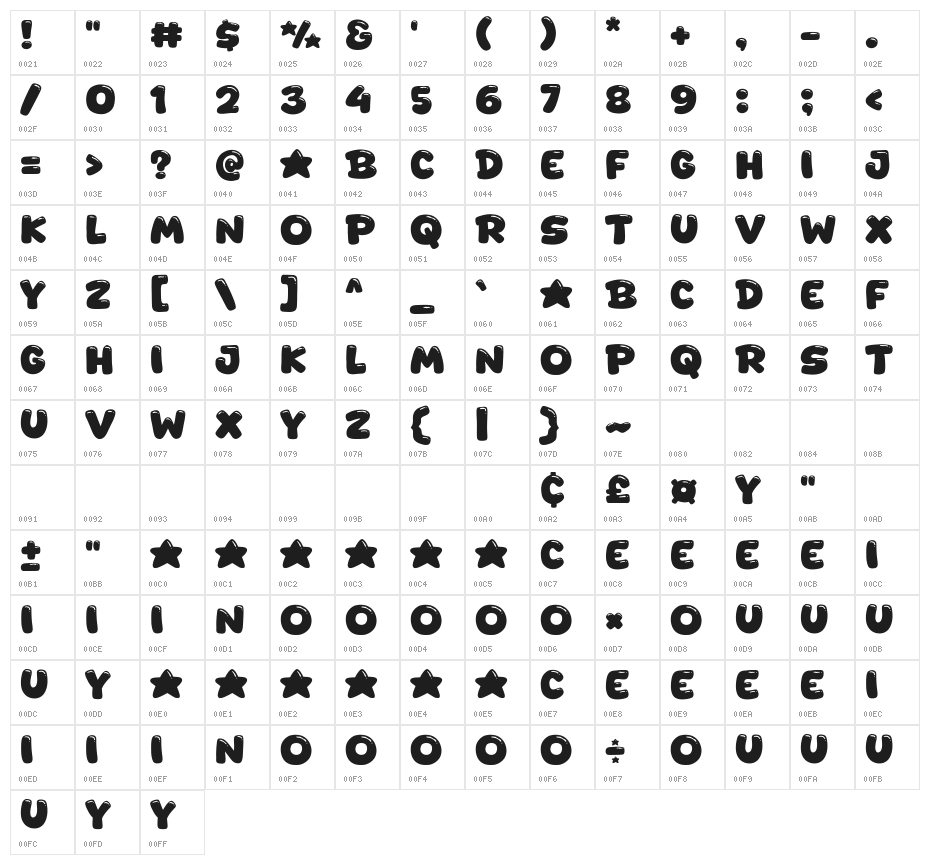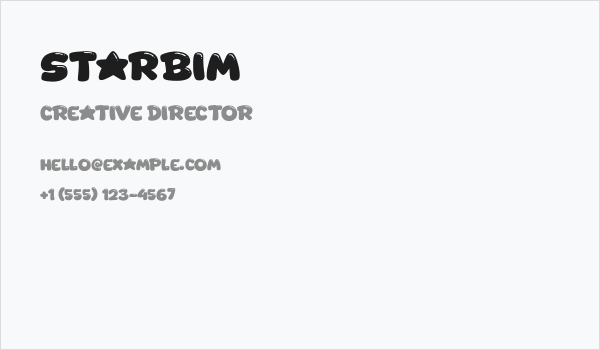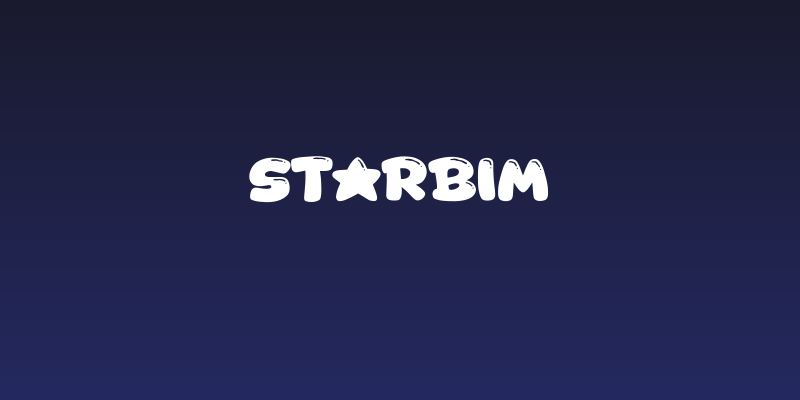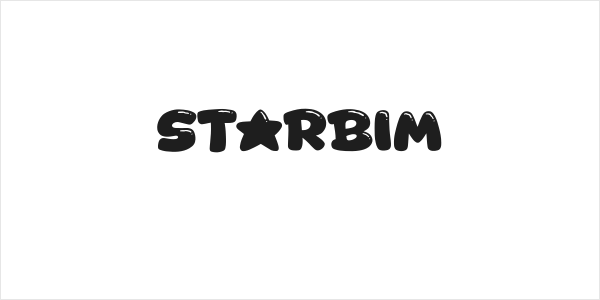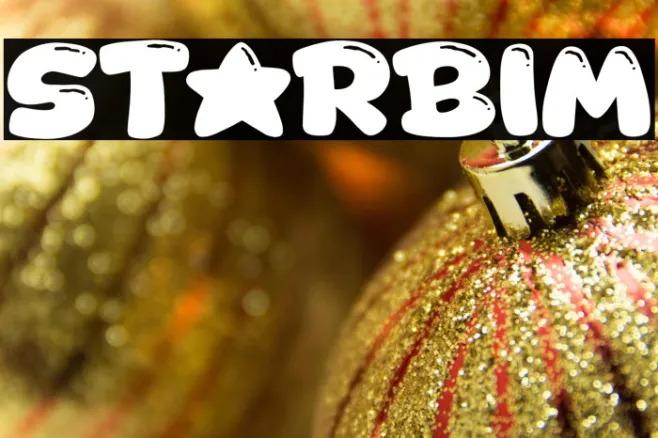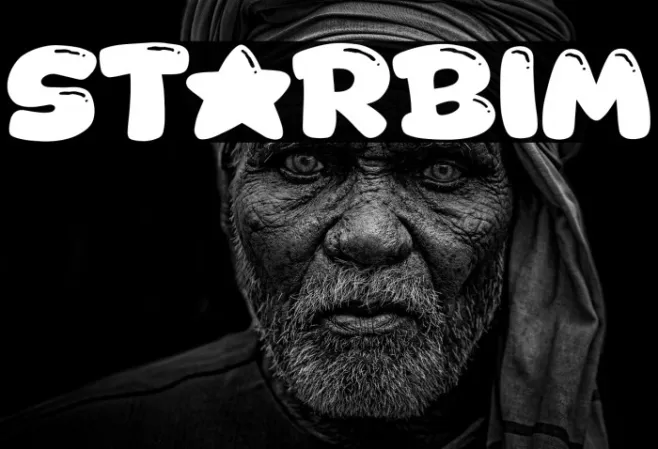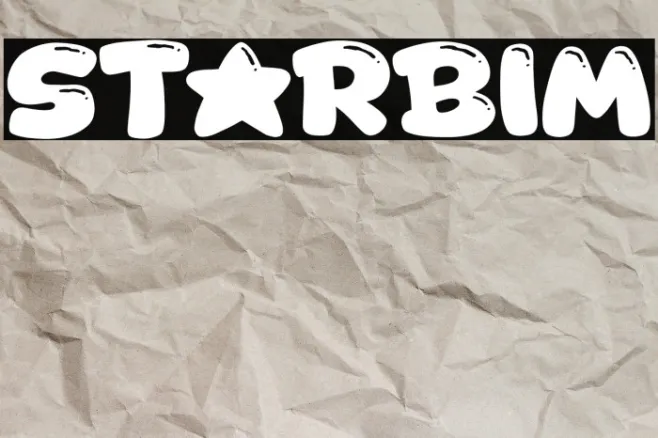
Starbim Font
Starbim Description
This playful and bold font features thick, rounded characters with a bubbly appearance. Each letter is crafted with a sense of whimsy, making it ideal for designs that aim to capture attention and convey a sense of fun. The characters are uniformly bold, with a consistent stroke width that adds to the font's cohesive look. The inclusion of a star symbol as a decorative element adds a unique touch, enhancing its playful nature. The numbers and special characters maintain the same bold and rounded style, ensuring a harmonious look across all text elements.
| Overall Style | Playful, Fun, Whimsical |
| Proposed Projects | Ideal for children's books, playful branding, party invitations, and any project requiring a fun, eye-catching typeface. |